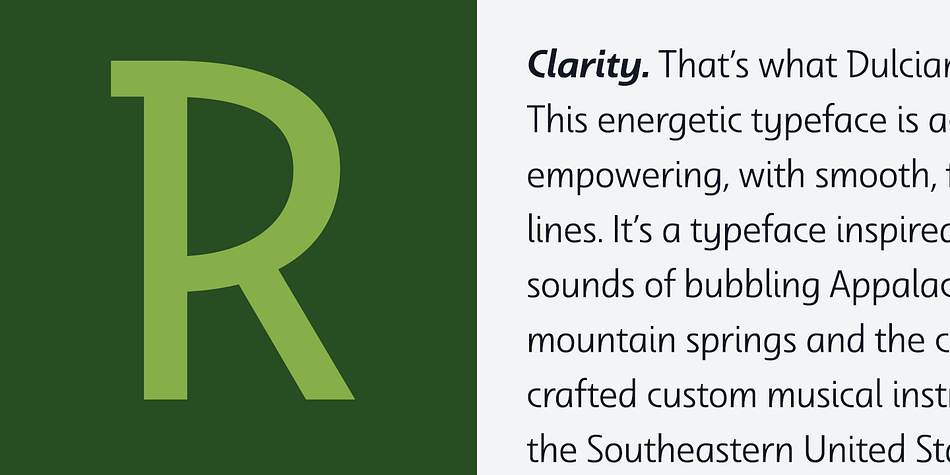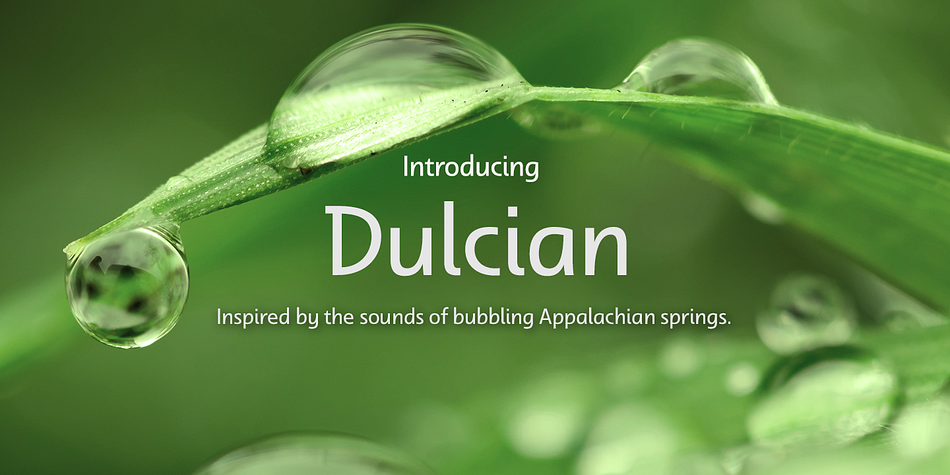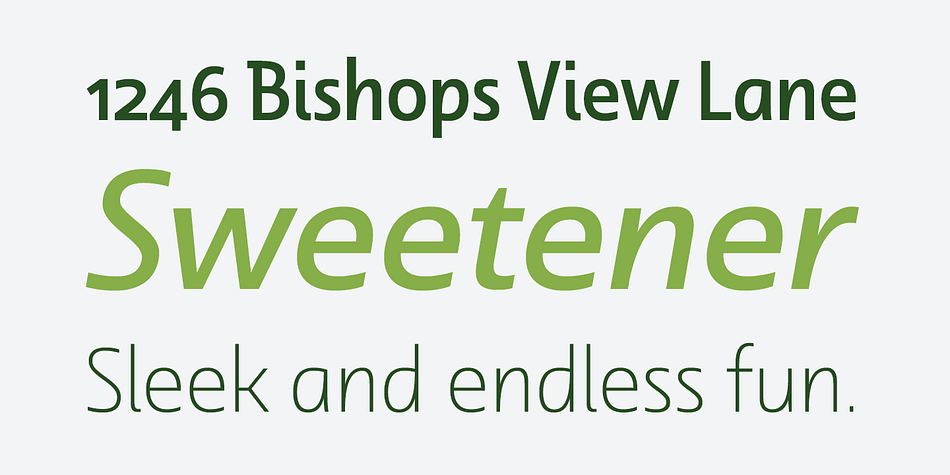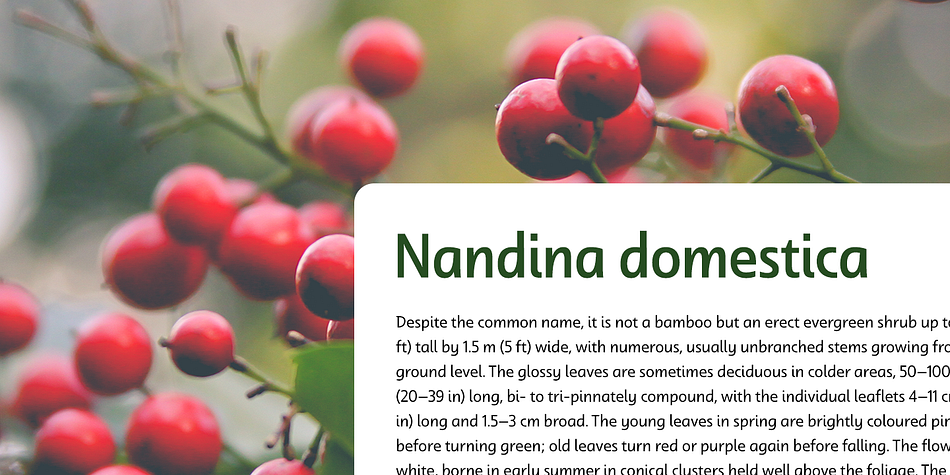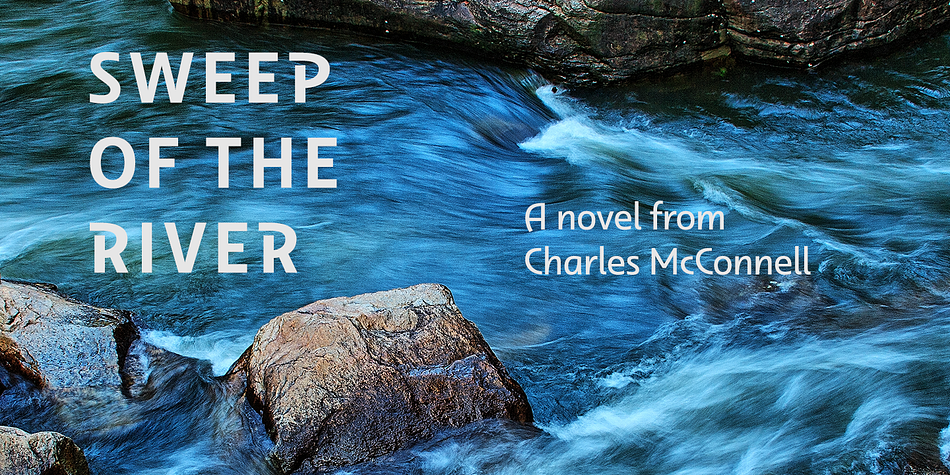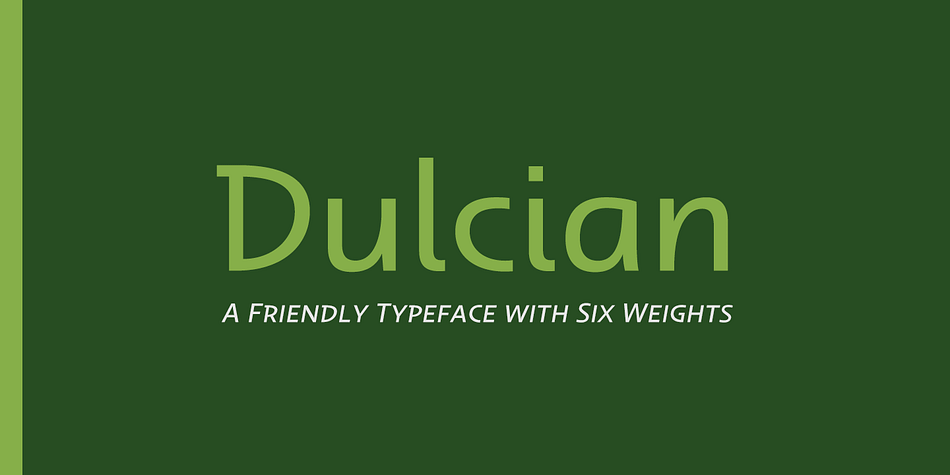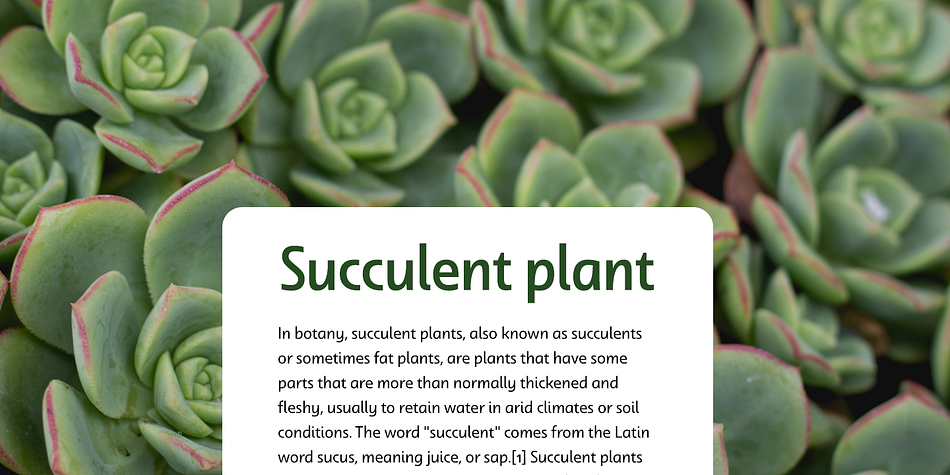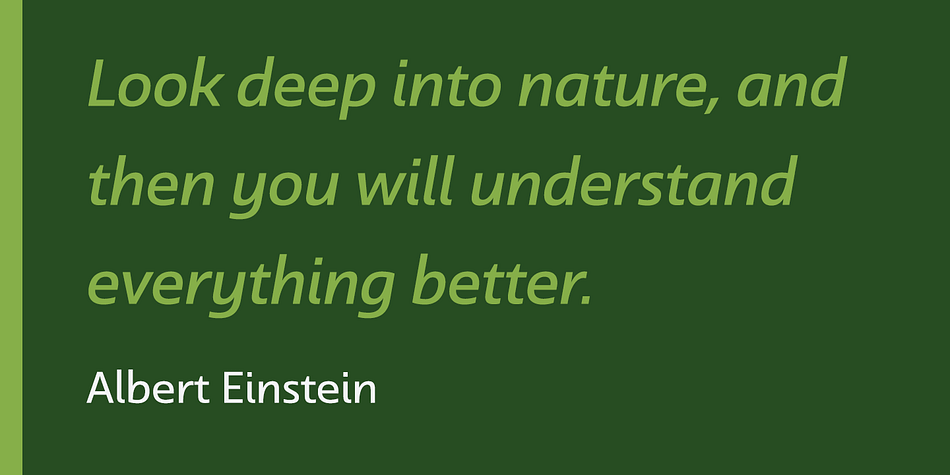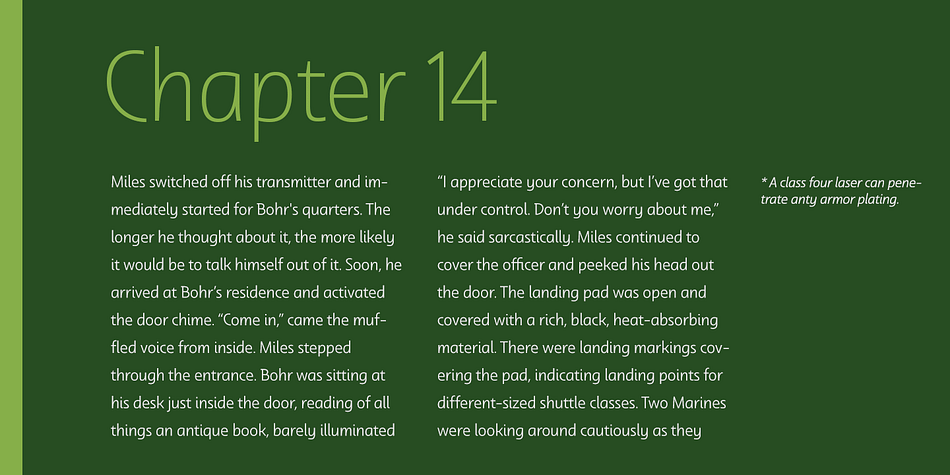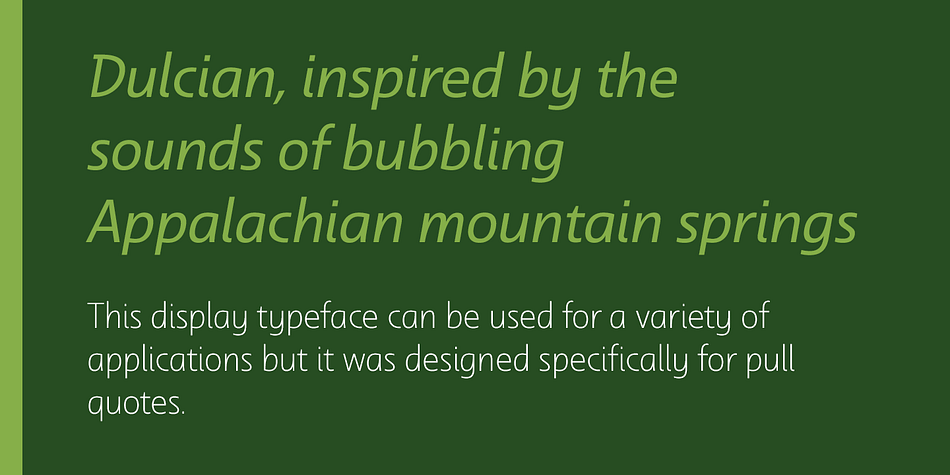
Dulcian is a sans serif font family. This typeface has thirty-six styles and was published by Insigne Design.
Inspired by the Appalachian culture of the Southeastern United States, the finely tuned forms of Dulcian strike a clear, empowering chord with your audience. This energetic and fresh sans serif flows fast and smooth with its simple lines and slight hand-written character. All total, there are six weights, with complementary italics and three different widths.
Dulcian supports OpenType features and is packaged with unicase alternates, unconnected alternates, ligatures, old-fashioned figures, fractions, titling and small caps. Preview any and all of these features in the interactive PDF manual. The Dulcian family of fonts also includes glyphs for 72 languages, providing you with more than 600 glyphs per font.
While designed especially for pull quotes, this display typeface can be used for a variety of applications. Dulcian is an excellent choice for websites as well as flyers and packaging. Other uses include coffee, menus, awards, certificates where a touch of humanity and personalization is needed.